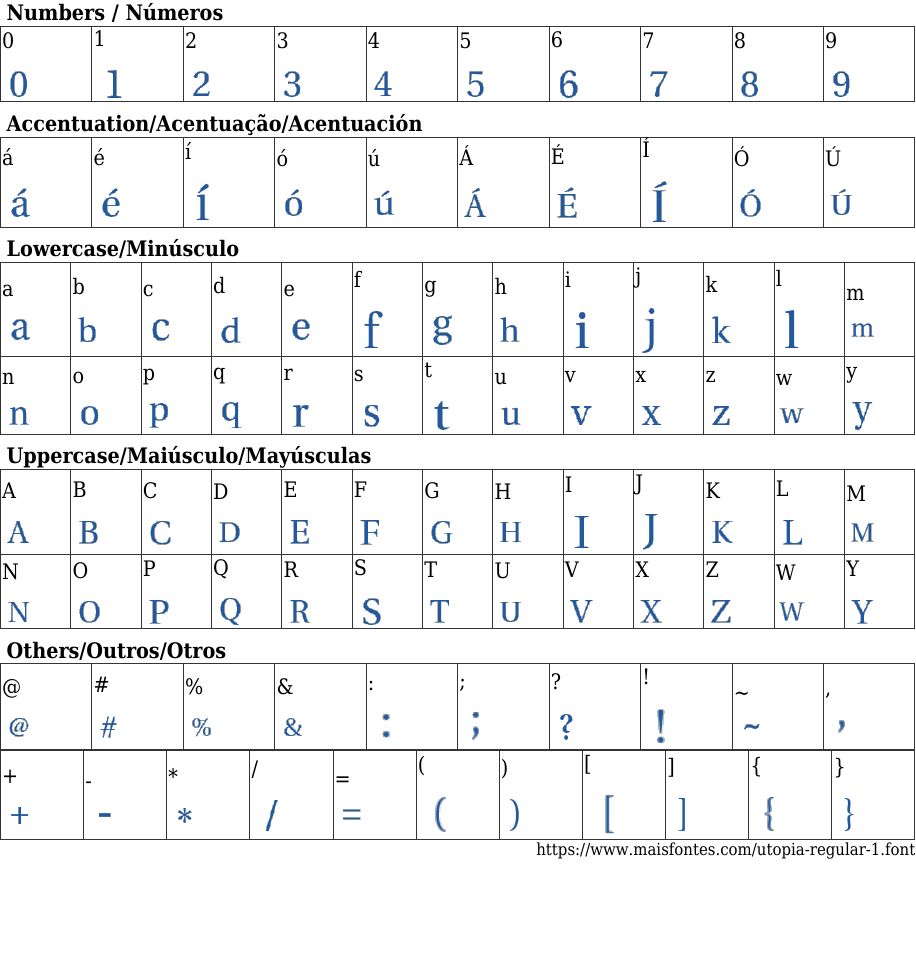
Utopia Regular Truetype Font
Download Utopia Regular Font Free Font Download Fontpalace Download the utopia™ regular font for mac or windows in opentype, truetype or postscript format. the font foundry is a free online type resource with one of the largest collections of freeware and shareware fonts available. the site provides high quality type by skilled designers. countless free fonts. Utopia is an adobe originals text face designed by robert slimbach in 1989. it combines the vertical stress and pronounced stroke contrast of eighteenth century transitional types like baskerville and walbaum with contemporary innovations in character shapes and stroke details. The utopia regular font provided is for typography style knowledge only. the download is completely free for personal use and the font cannot be used for commercial purposes. We have collected all the most important information about the utopia regular font. below is a table about the font file version, license, copyright, designer and vendor name. the information is taken from the "ttf" font file. Download for free utopia regular. check out examples of the utopia regular font at azfonts. Archive of freely downloadable fonts. browse by alphabetical listing, by style, by author or by popularity.